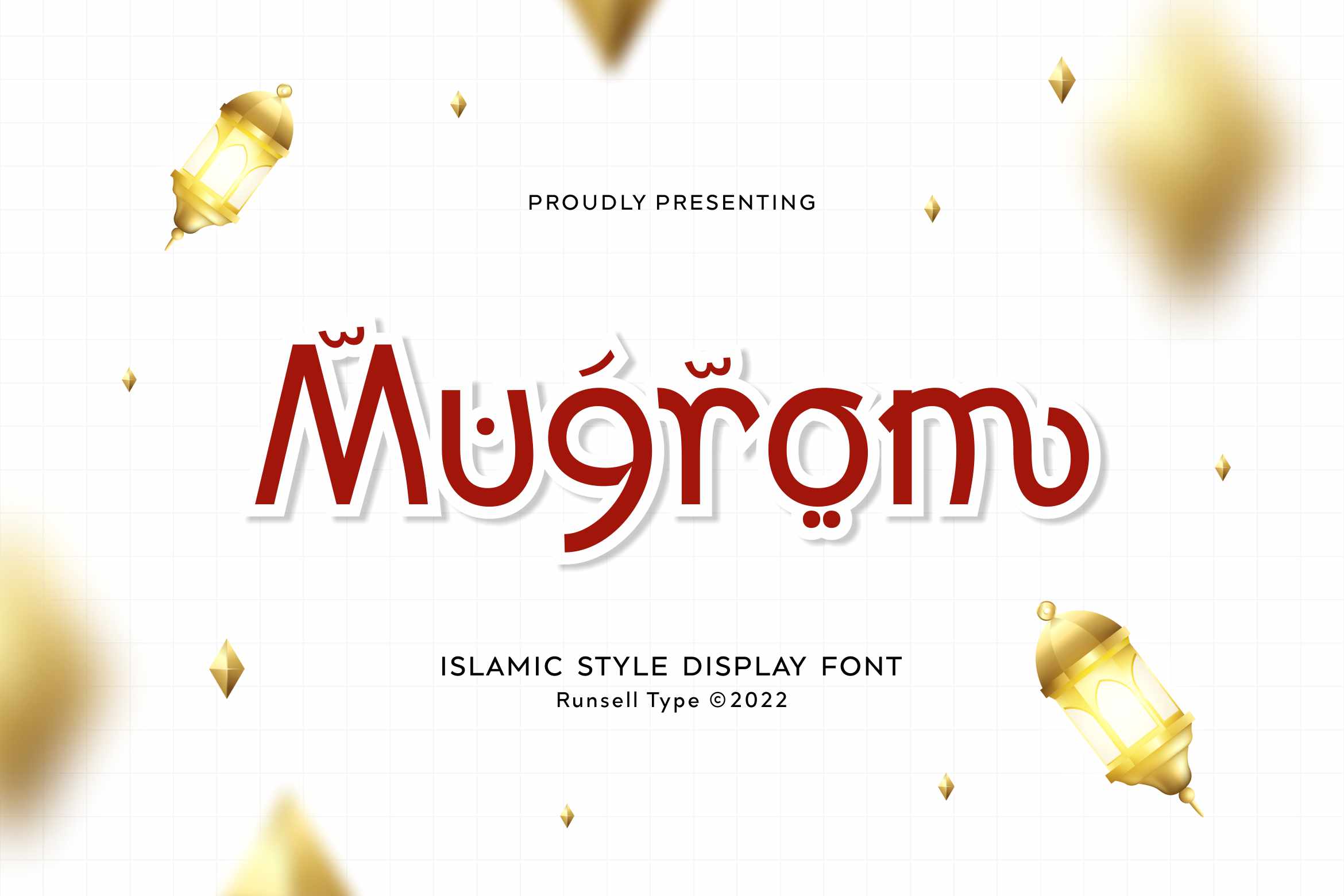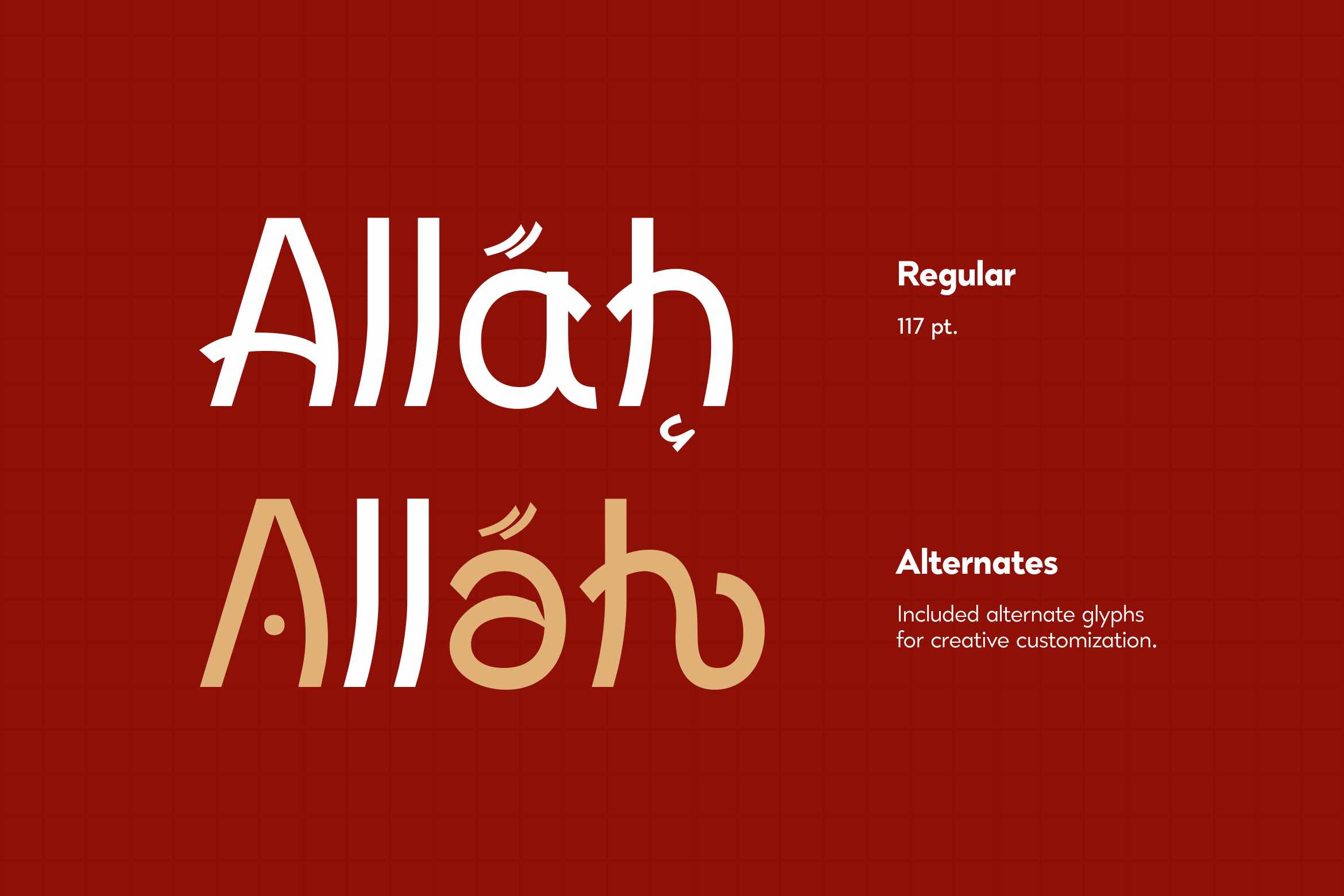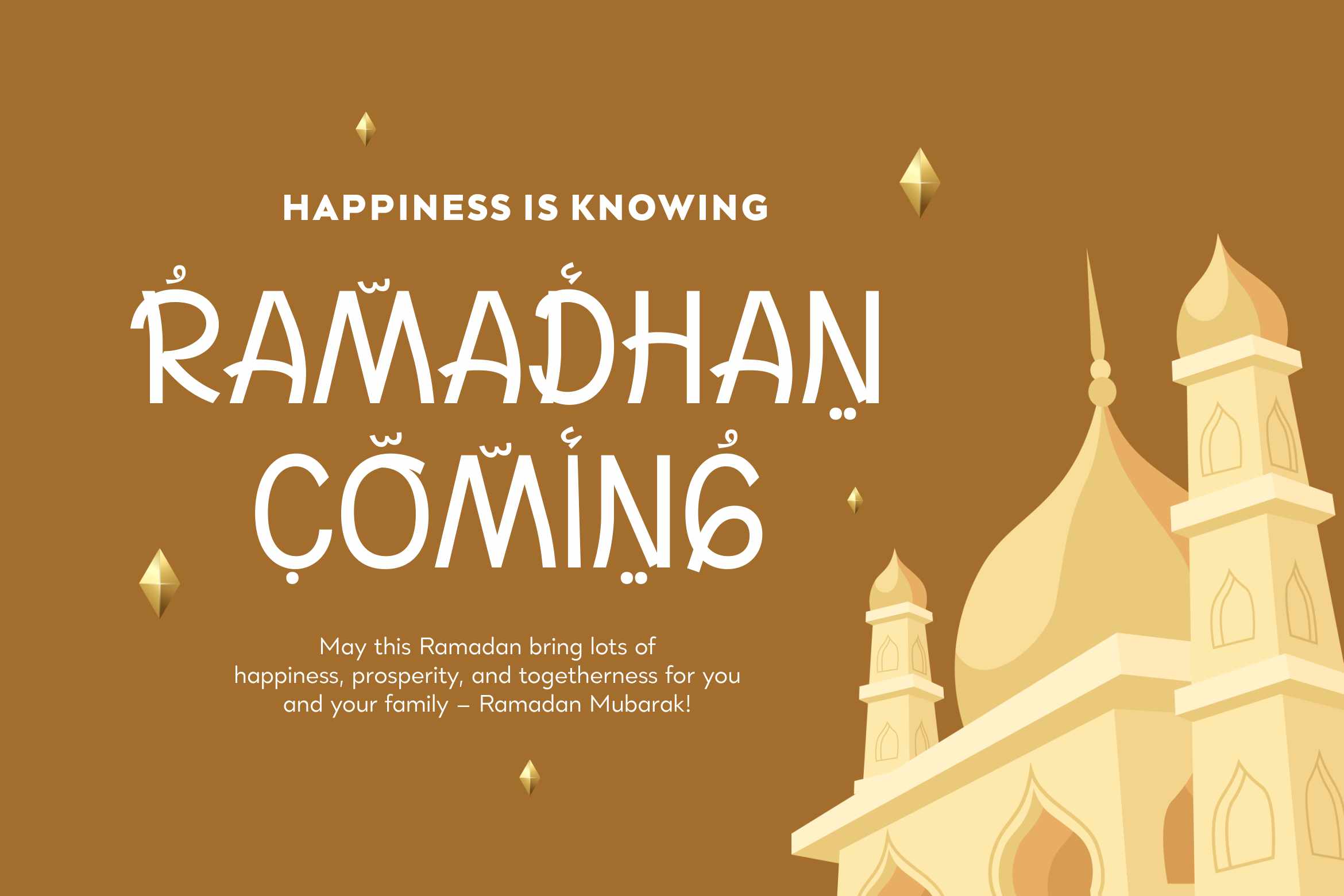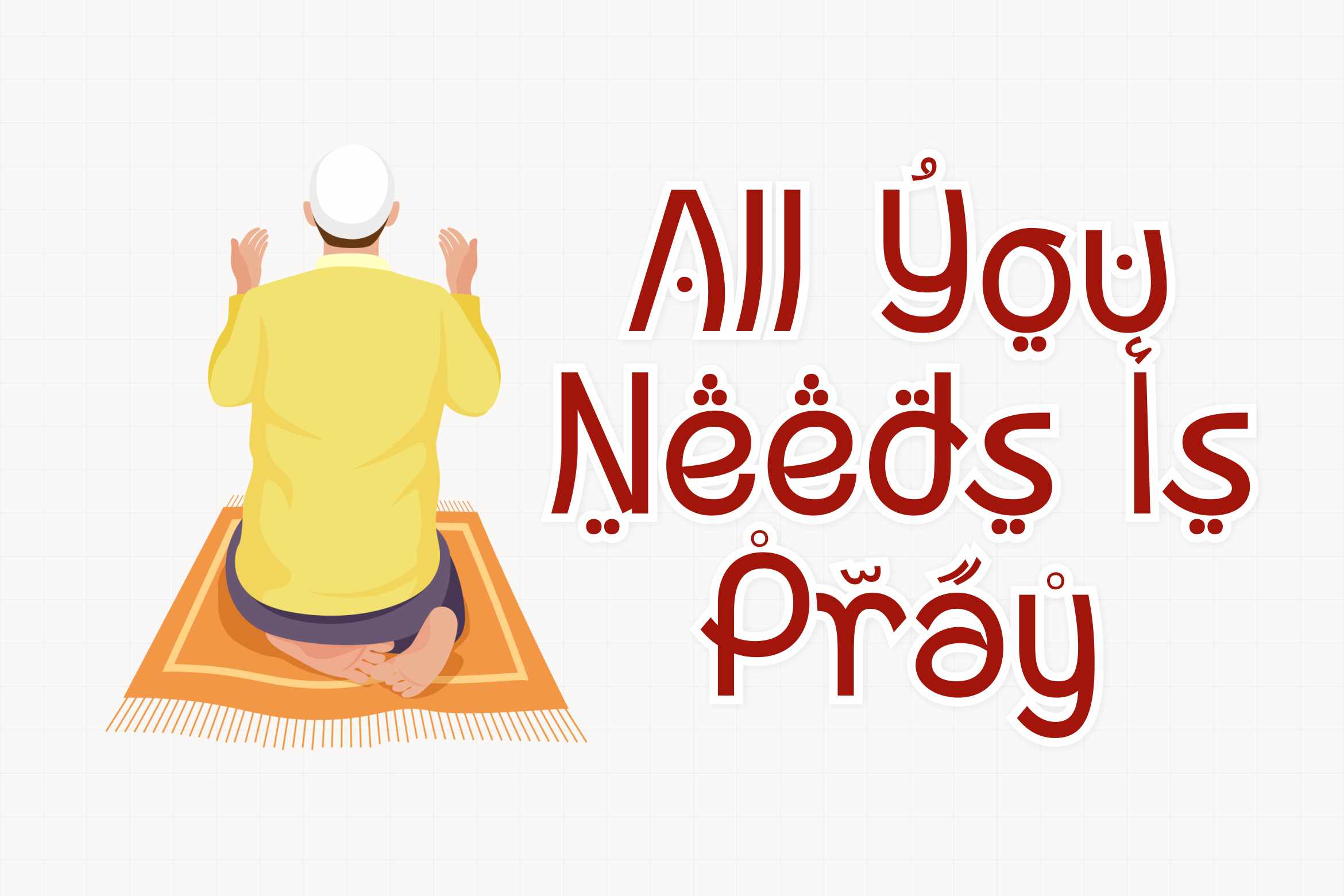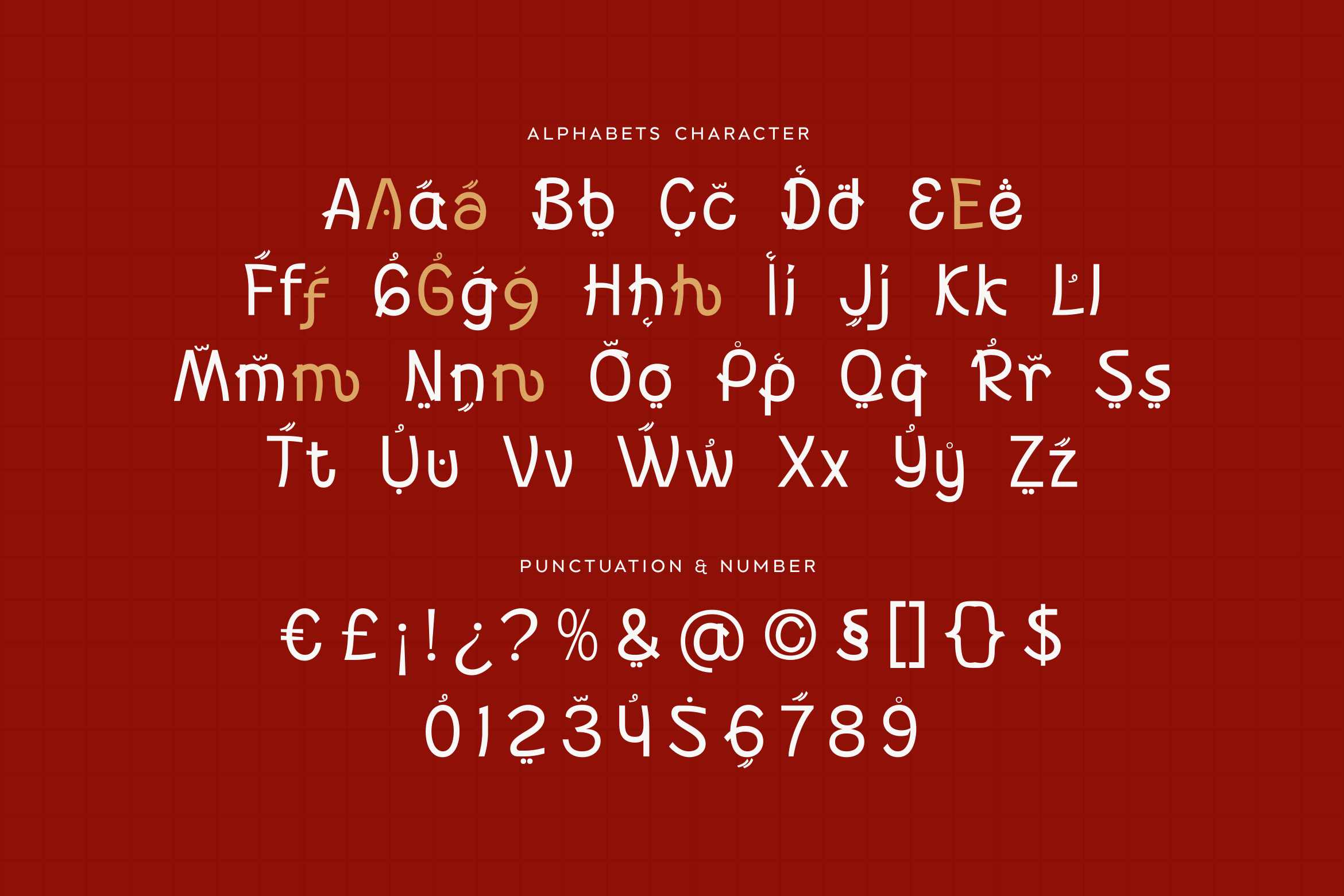
Mugrom is an expressive Islamic-style display font that blends modern Latin characters with stylized Arabic-inspired accents. Each letter is infused with diacritic-like elements and soft, rounded curves that evoke traditional Islamic calligraphy, while still maintaining readability and playfulness. Perfect for festive greetings, Ramadan promotions, or religious-themed branding, Mugrom brings a unique warmth and cultural richness to any visual project.
The font includes alternate glyphs to offer creative variety and enhanced design flexibility. With its joyful character and symbolic flair, Mugrom stands out in children’s books, Islamic campaigns, or community event posters. Whether you’re highlighting cultural identity or adding spiritual tone to your design, Mugrom is crafted to celebrate tradition in a contemporary form.